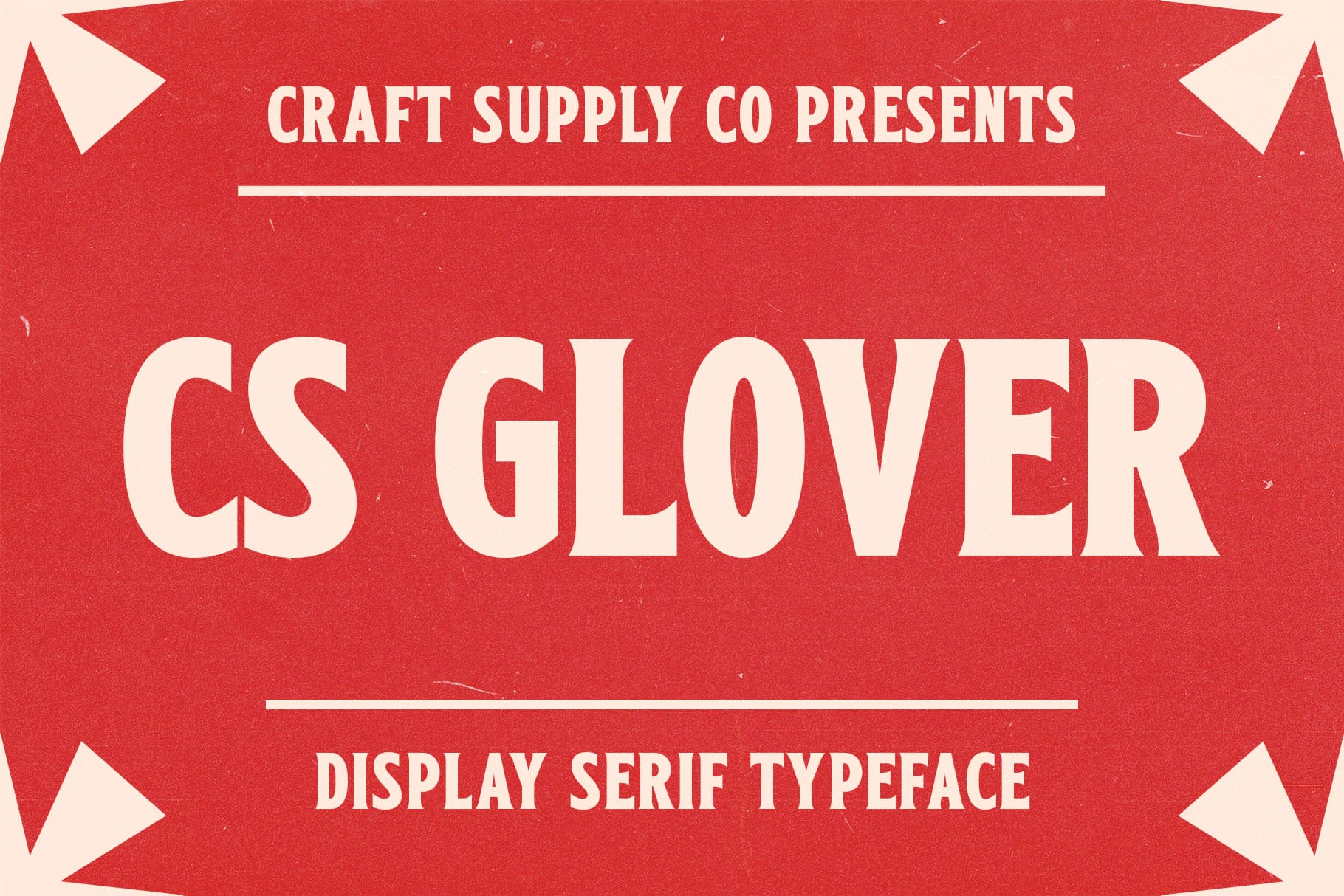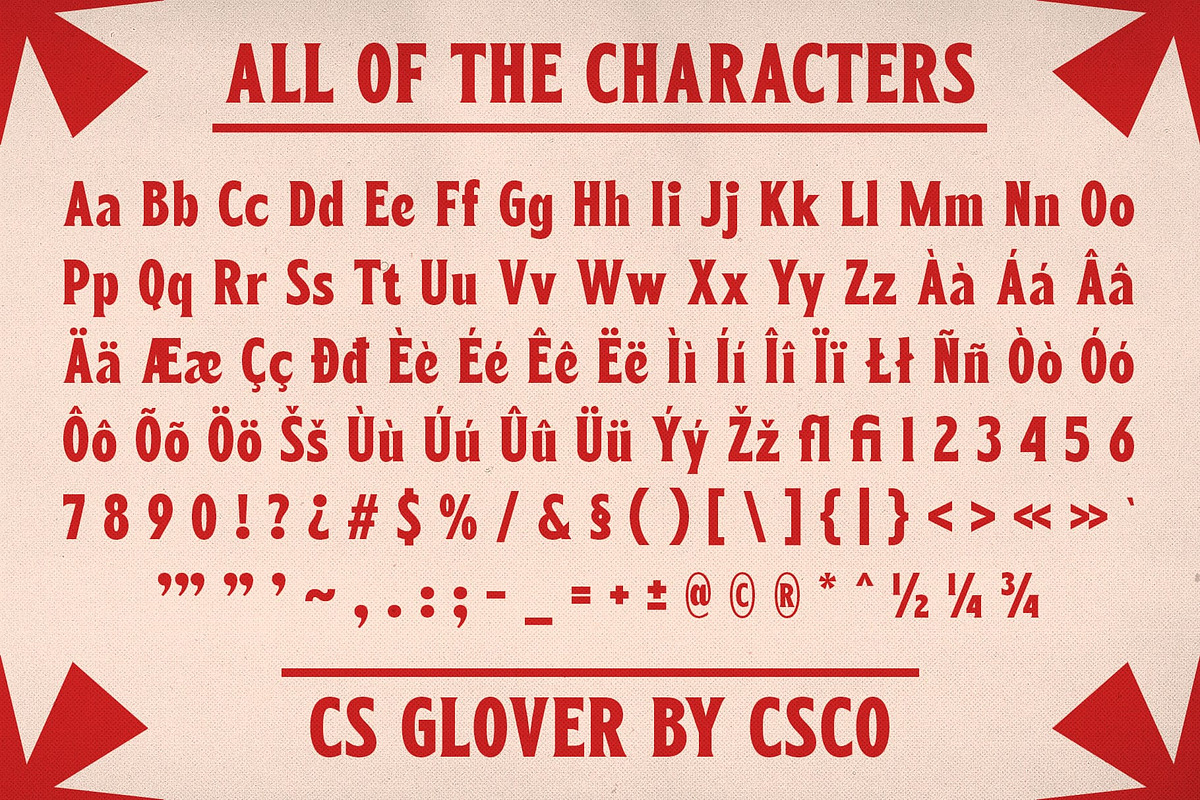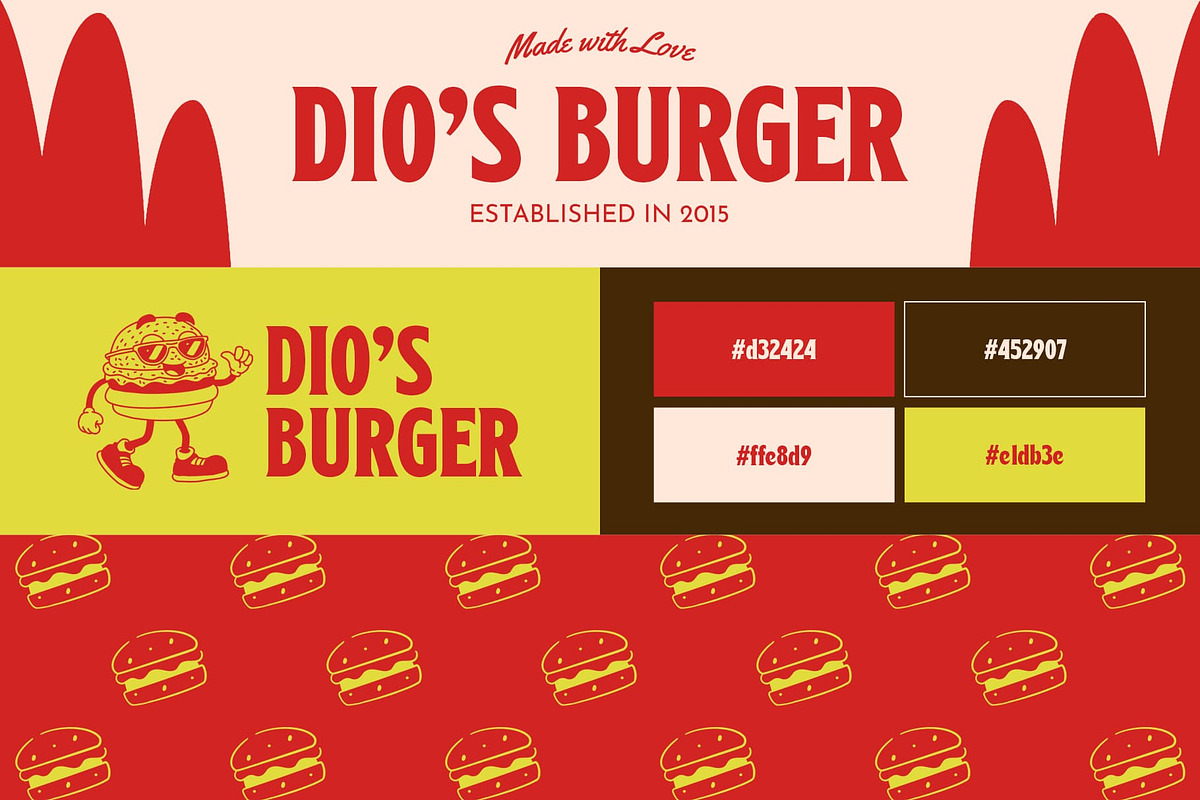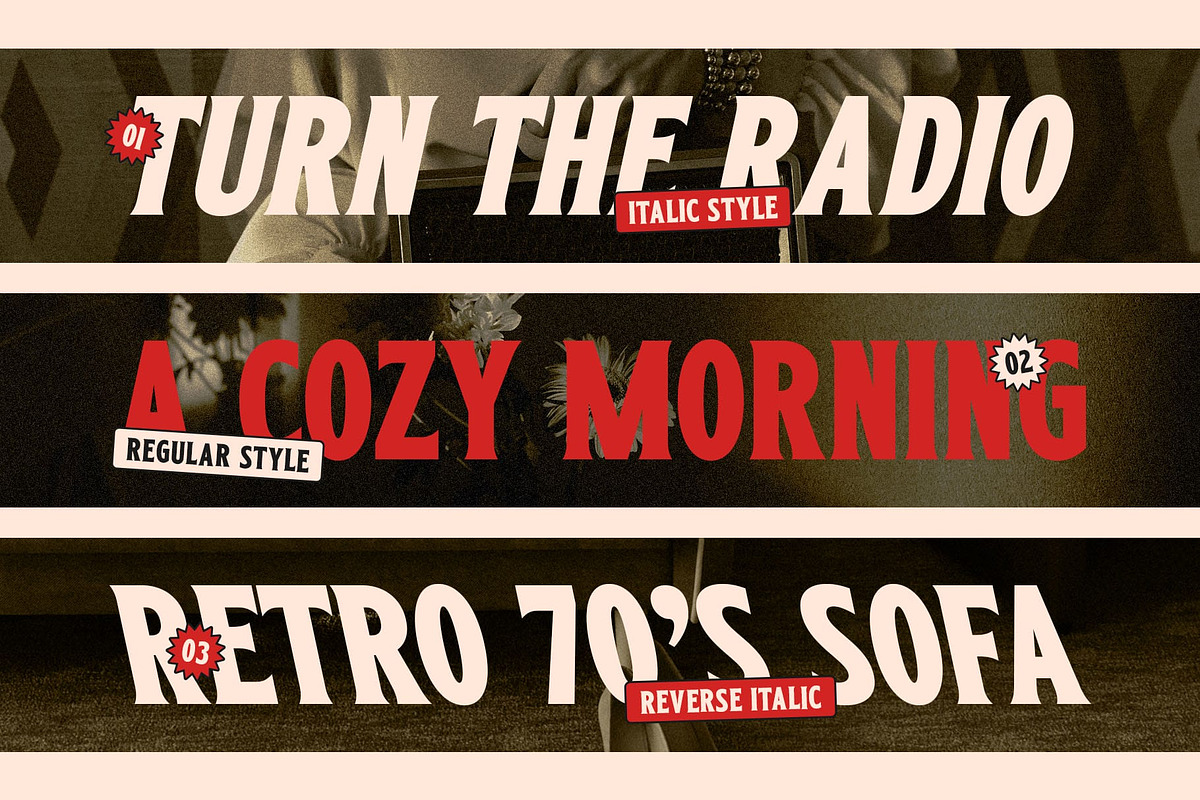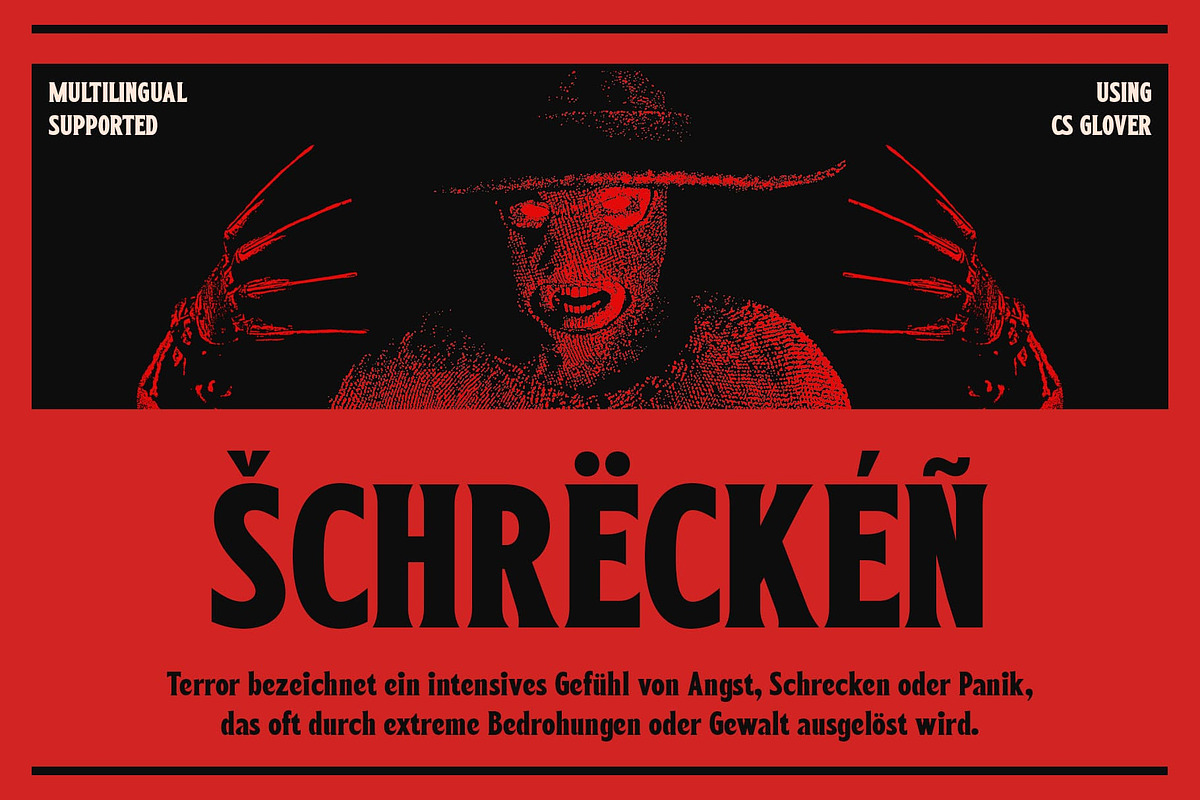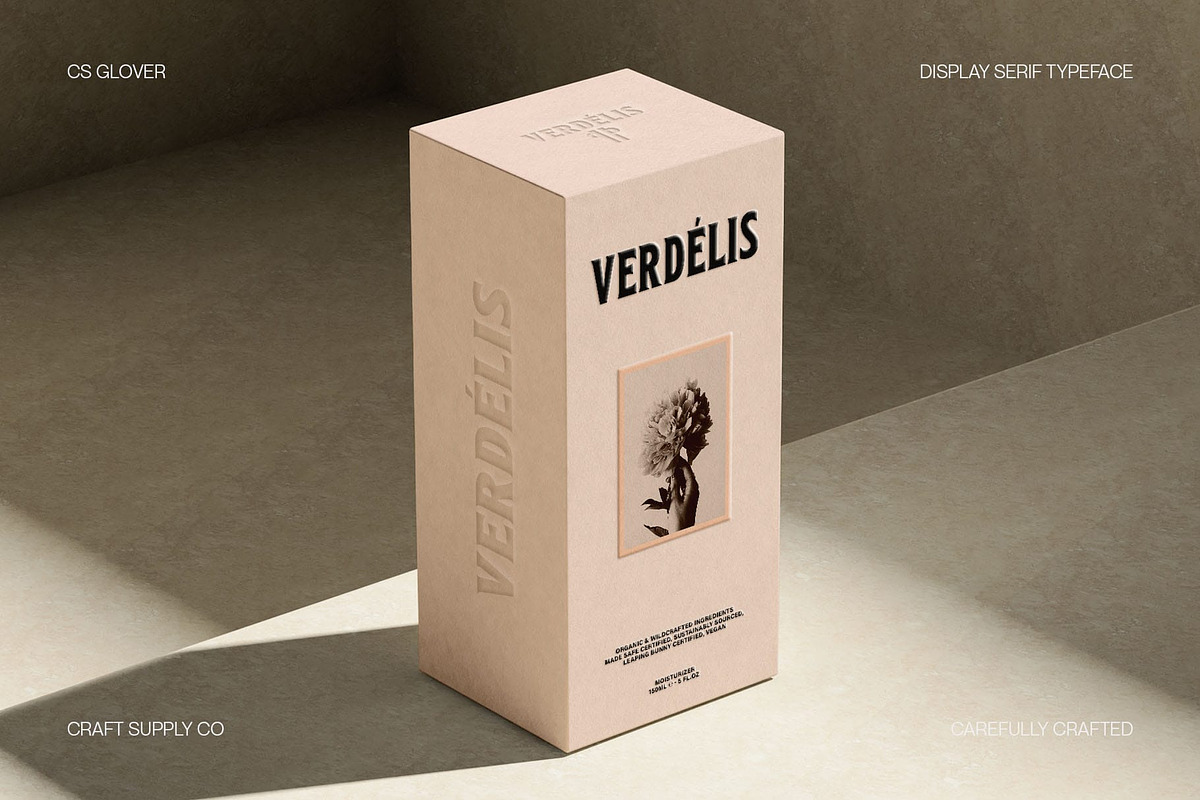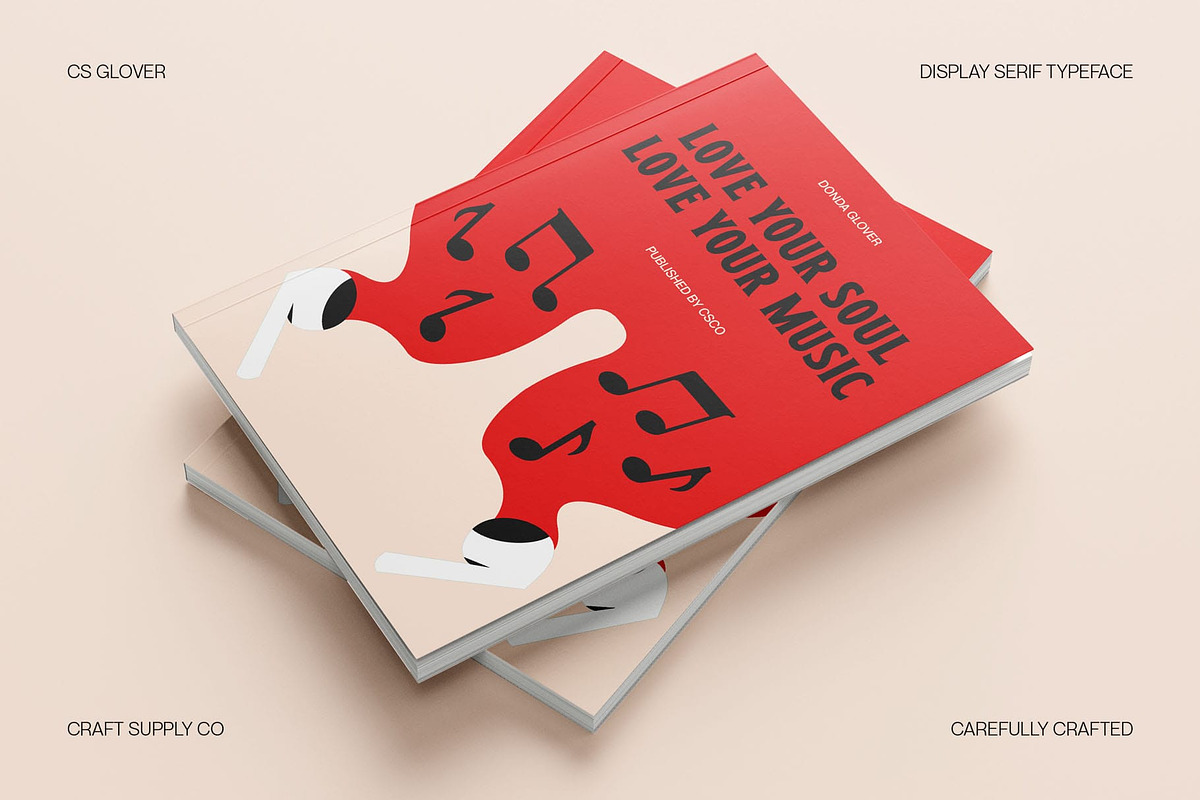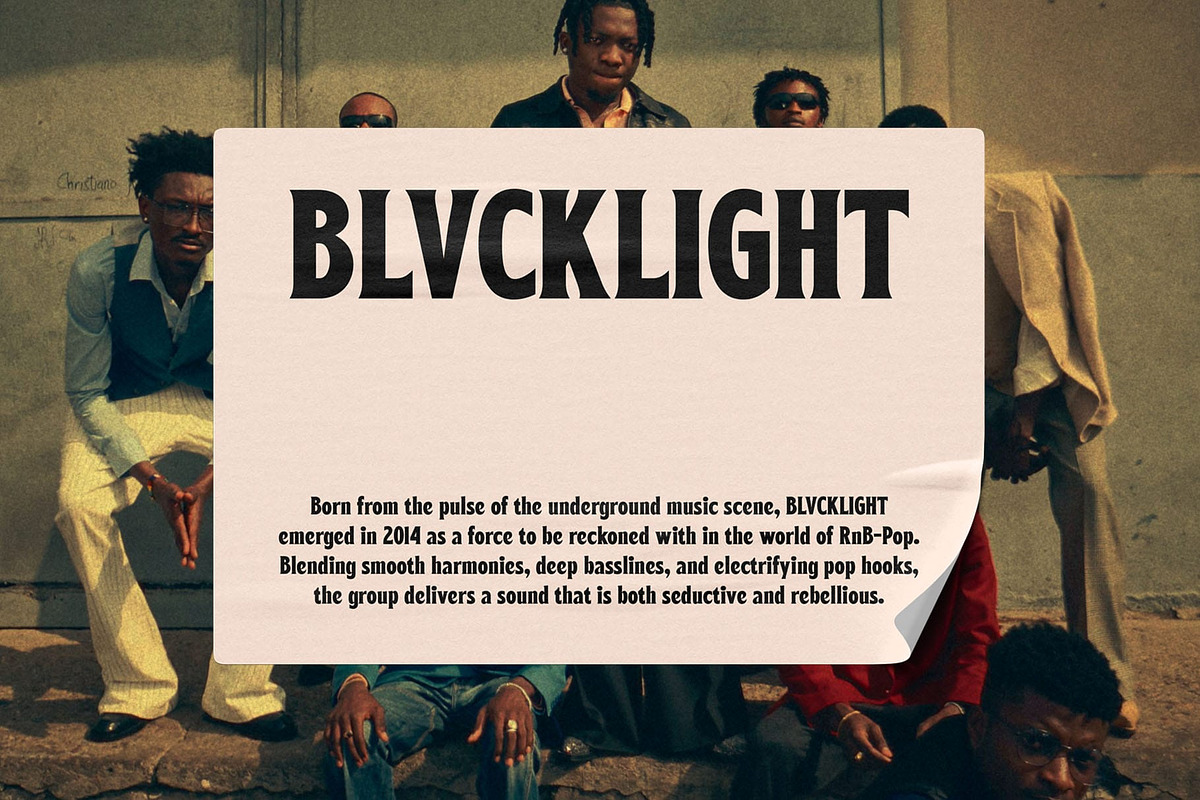
CS Glover – Bold Font
CS Glover – Bold Font: A Nostalgic Blend of Funk and Retro Flair
Classic Serif with a Bold 90s Aesthetic CS Glover – Bold Font is a classic serif typeface with a bold structure and a playful retro 90s vibe. Inspired by vintage typography, this font blends strong, thick letterforms with stylish curves, creating a design that feels both nostalgic and fresh. Whether you’re looking to capture the essence of the past or bring a fun, expressive touch to modern projects, CS Glover delivers with its eye-catching personality.
Dynamic Curves and Distinctive Contrast With a striking mix of thick and thin strokes, CS Glover achieves a unique visual rhythm that makes each letter stand out. The curved letterforms and exaggerated serifs add a touch of flair, making it perfect for creative and artistic applications. This bold serif font doesn’t shy away from making an impact, whether used for headlines, posters, or statement branding.
A Fun and Nostalgic Retro Energy CS Glover brings a cheerful and funky energy that instantly transports viewers to the vibrant aesthetics of the 90s era. Whether paired with bright colors, vintage patterns, or bold layouts, this font enhances designs with a sense of excitement and nostalgia. Ideal for music posters, festival branding, product packaging, and lifestyle promotions, it embodies a playful yet confident look.